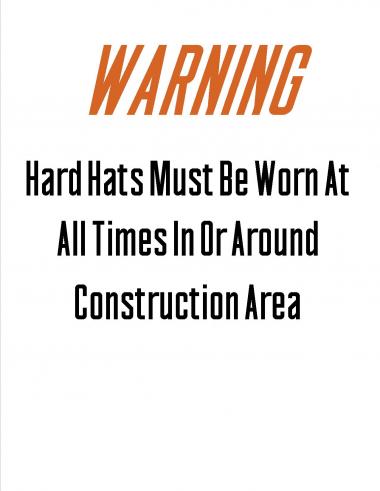
Very condensed sans! 10/10 :-)
This is a pretty good font. I like it.
Very nice work. Especialy diagonals are realy great "AKVWXYZ"
one small comment: the horizontal bar of A should be lower
@Upixel:The bar of the A is now 1 square lower.
I particularly like the way you've used stretched curves for the joins on a, b, d, etc. Very elegant. Lovely proportions. Altogether a rocking font.
OK I just changed the LC "a" to a better-looking one. I think it looks better, anyway.